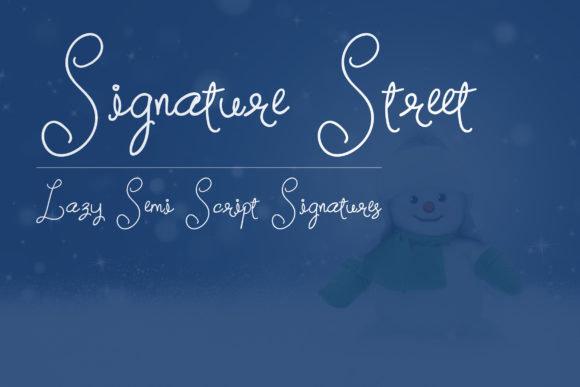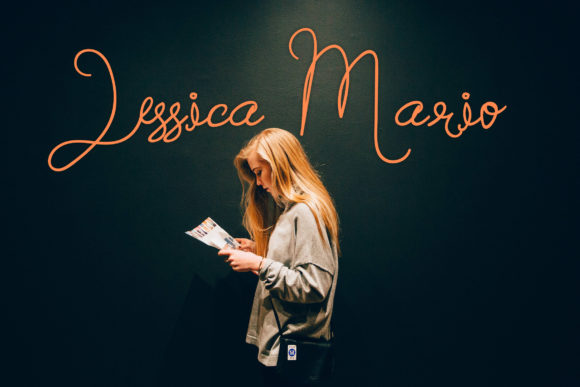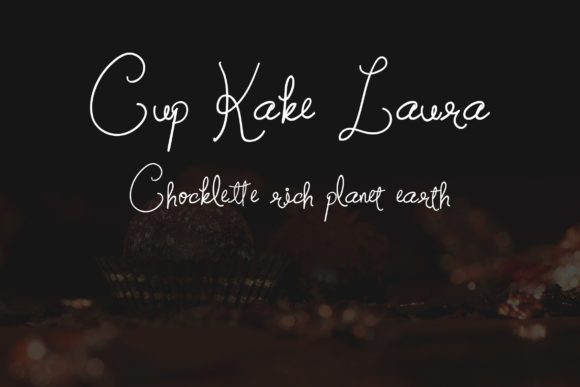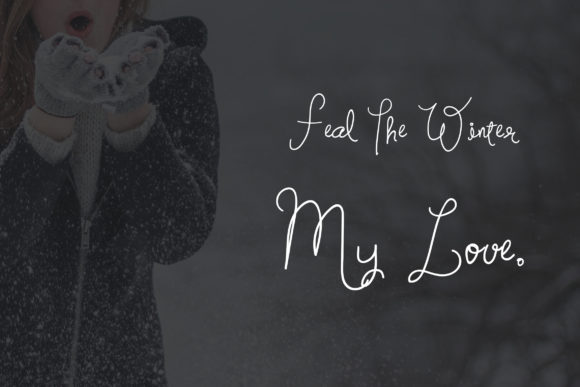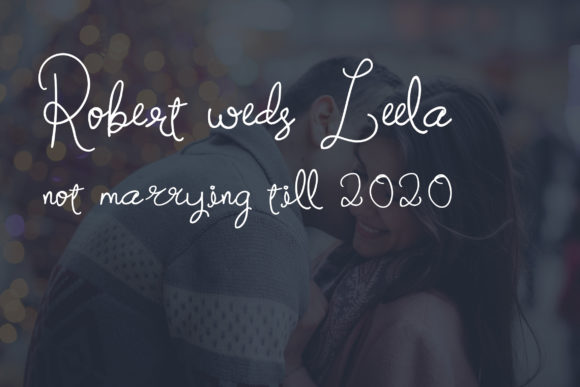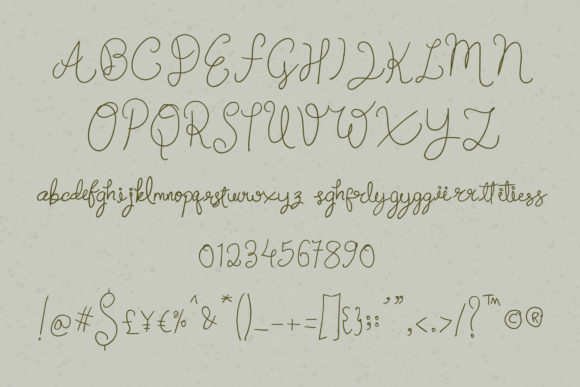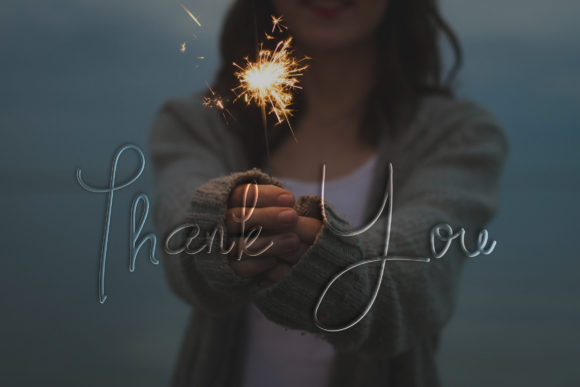
Signature Street Font
About Signature Street Font
The Signature Street is a lazy signature, semi script font. Its handwritten style is perfect for advertisement, social media, personal notes, and much more!